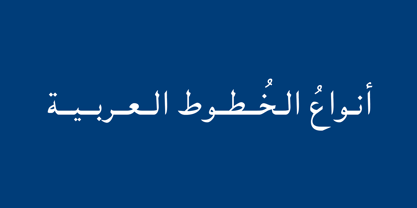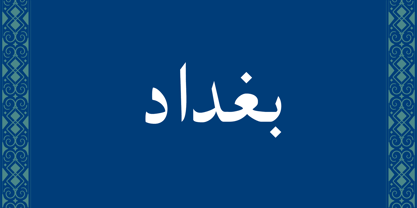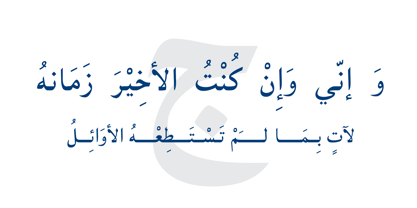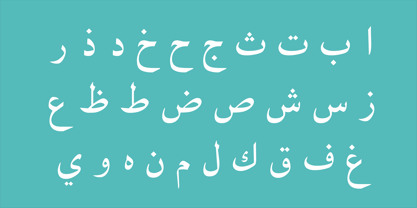
Baghdad
by Diwan Software
The Baghdad Font Family was designed by Diwan Font Team and published by Diwan Software. Baghdad contains 1 styles. More about this family
Baghdad is a standard Arabic font that is versatile and, therefore, perfect for both body text and titles. With a refined, slightly headliny design, it strikes a balance between readability and visual impact. Its clear, well-proportioned letterforms ensure smooth reading in longer texts, while its bold yet elegant style makes it stand out for headlines and titles.
Designers: Diwan Font Team
Foundry: Diwan Software